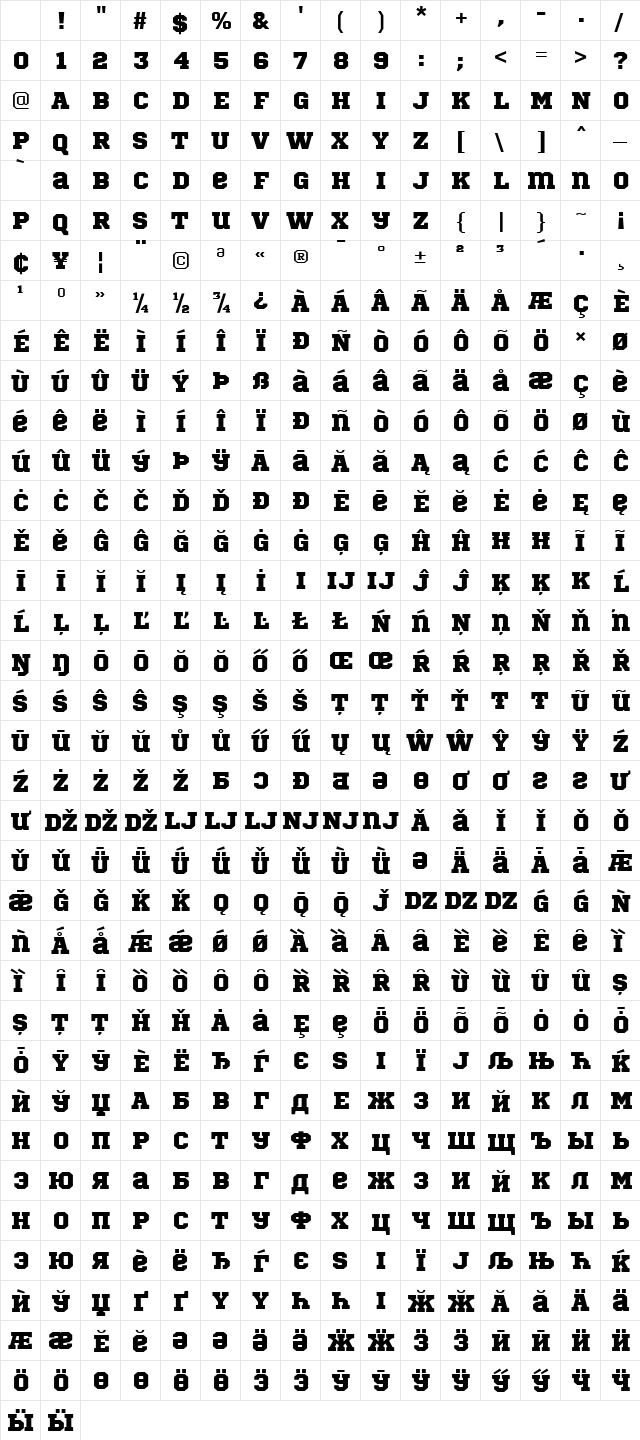
Complete Sports World Regular glyph index. Displaying only characters natively supported by Sports World Regular font.
Sports World brings high-energy athletic personality to the page - its confident, muscular forms are built for impact.
Pro Tip: Use Sports World in all-caps headlines where its athletic energy can fully express itself. Pair with a solid, simple sans for supporting text.